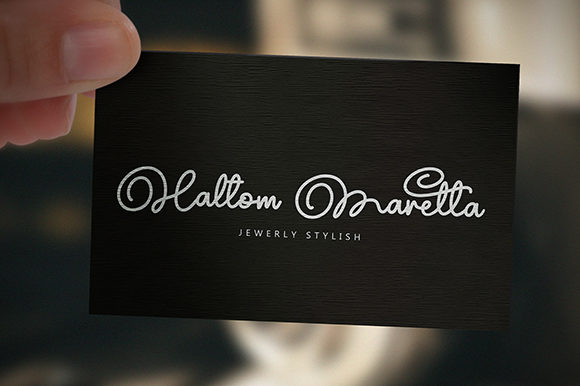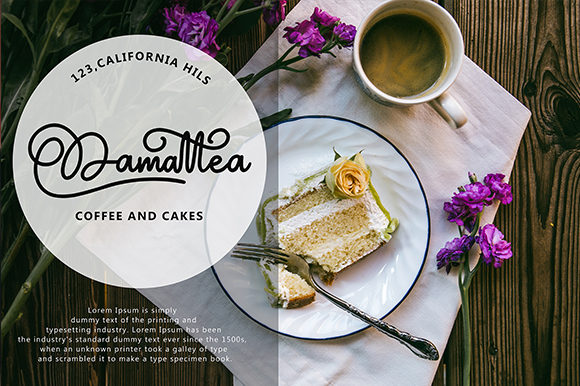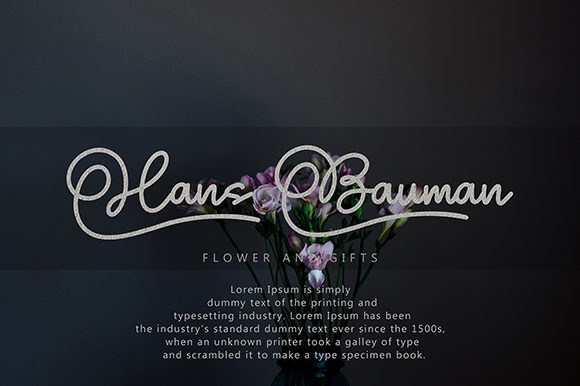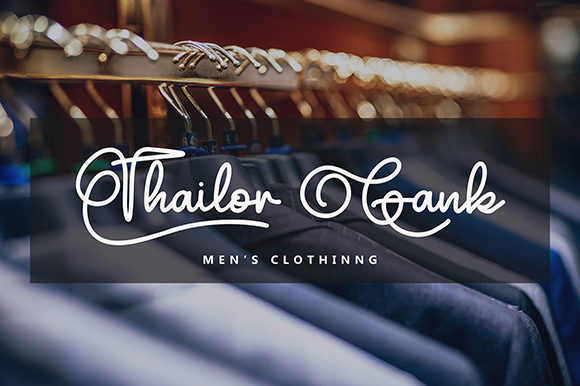
Introduction to Mattea Font
Mattea is a unique and swirly handwritten font with a romantic touch.
It will turn any design project into a stand out .
Key Features of Mattea Font
Why Choose Mattea Font?
Mattea Font offers exceptional quality and versatility, making it a valuable addition to your design toolkit. Whether you’re creating for personal projects or commercial use, Mattea Font delivers professional results.